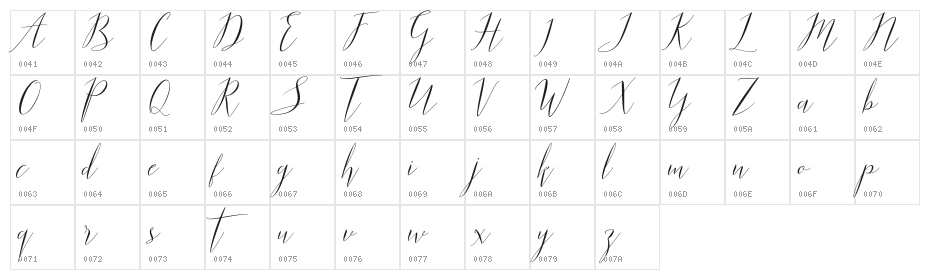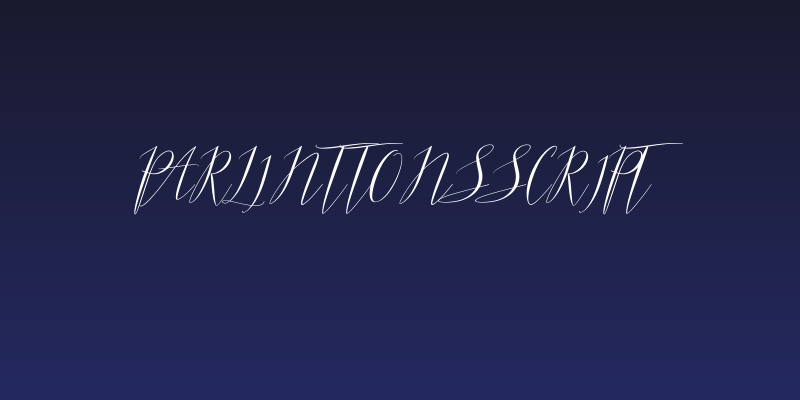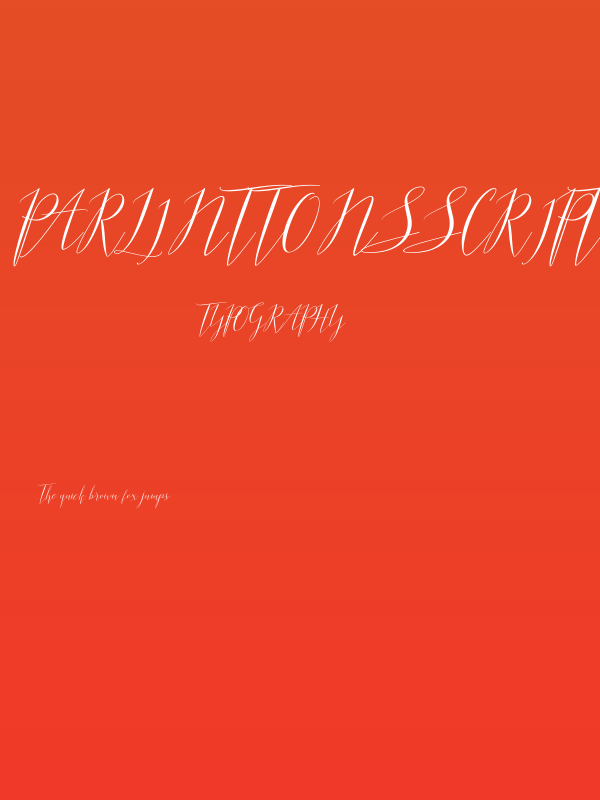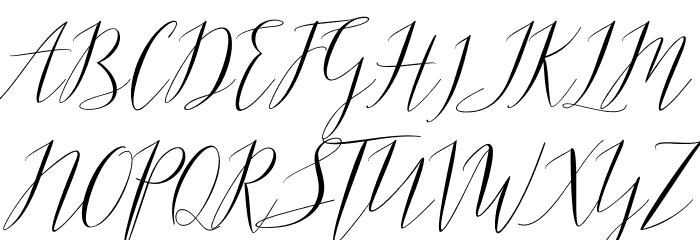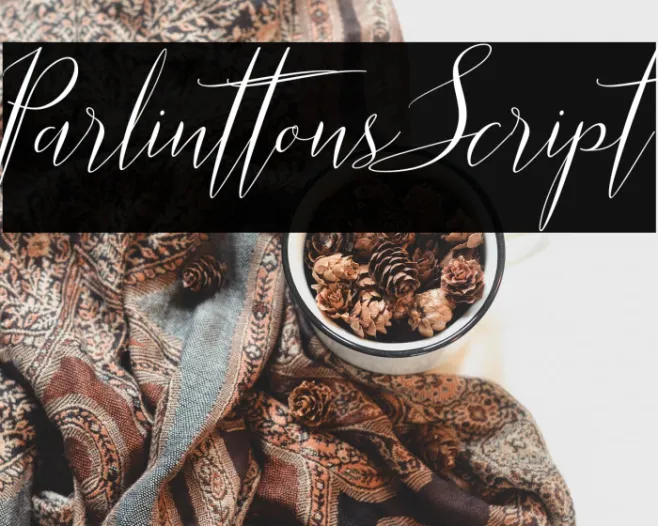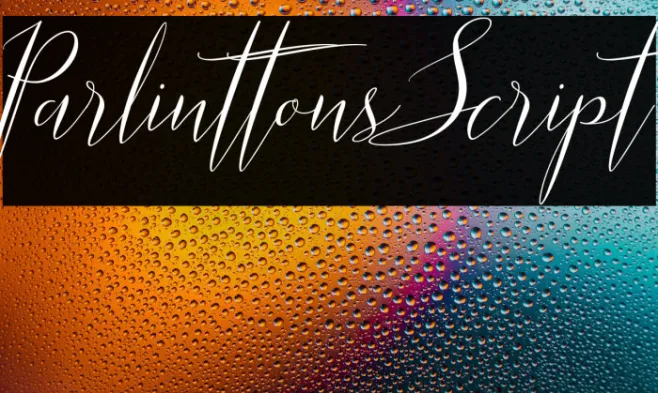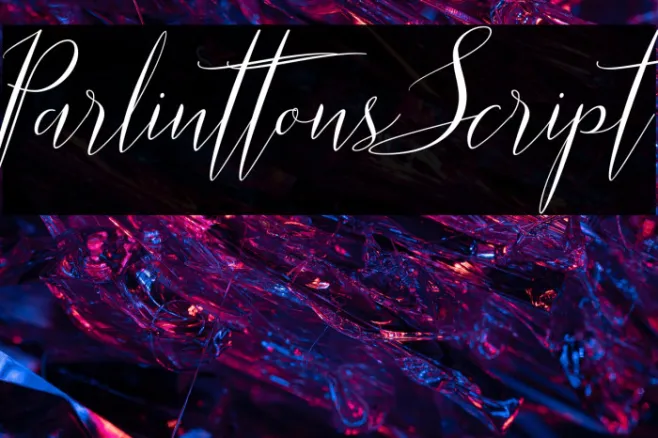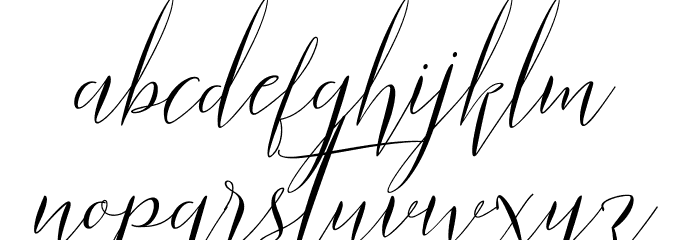
ParlinttonsScript Font
ParlinttonsScript Description
This elegant script font exudes a sense of sophistication and fluidity, characterized by its graceful, flowing lines and delicate curves. The letters are intricately connected, creating a seamless and harmonious appearance. The font features high contrast between thick and thin strokes, adding to its refined and stylish look. Its calligraphic style is reminiscent of traditional handwriting, yet it maintains a modern flair. The uppercase letters are particularly ornate, with elaborate swashes and loops that enhance its decorative appeal. Overall, this font embodies a sense of elegance and artistry, making it suitable for a variety of creative applications.